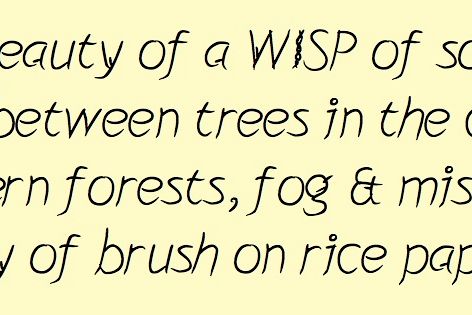
Wisp
Wisp is a light and airy font inspired by watching cirrus clouds move across a blue sky. Some characters are whimsical, like wisps of smoke curling up from a candle lamp. Other characters have extra feathered elements, suggested by curls and parallel lines in the clouds. Wisp is primarily useful for display text, or wherever you wish to suggest lightness and airiness. It can also be used as a semi-cursive italic or oblique font. The font contains a full set of diacriticals and accents for many European languages.